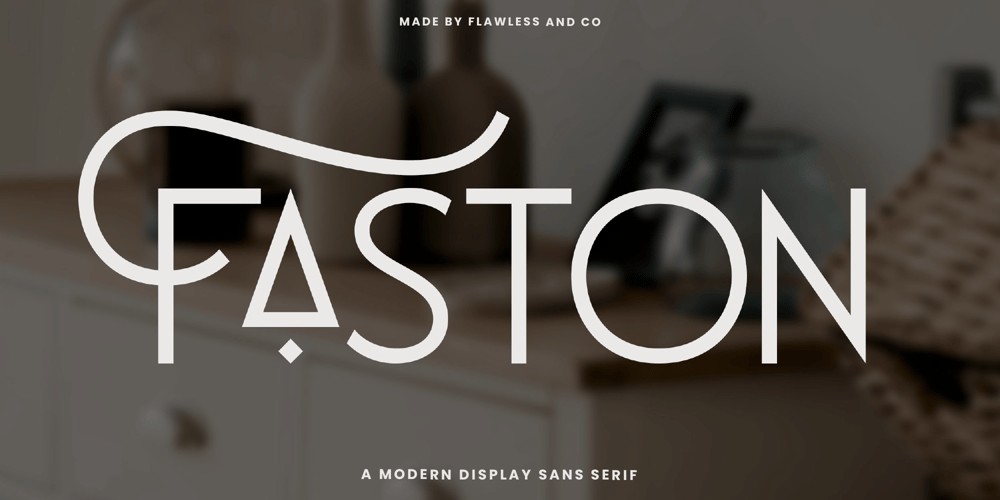
Faston Font Family was designed by Achmad Yani and published by Flawlessandco. Faston contains 1 styles and family package options. Faston is a Modern Display Sans Serif Font. Unleash the power of contemporary design with Faston, a dynamic and versatile display sans serif font that elevates your projects to the cutting edge.There’s some connected letters and some alternates that suitable for any graphic designs. This font support for some multilingual. Also contains uppercase A-Z and lowercase a-z, alternate character, numbers 0-9, and some punctuation.If you need help, just write me! Thanks so much for checking out my shop!